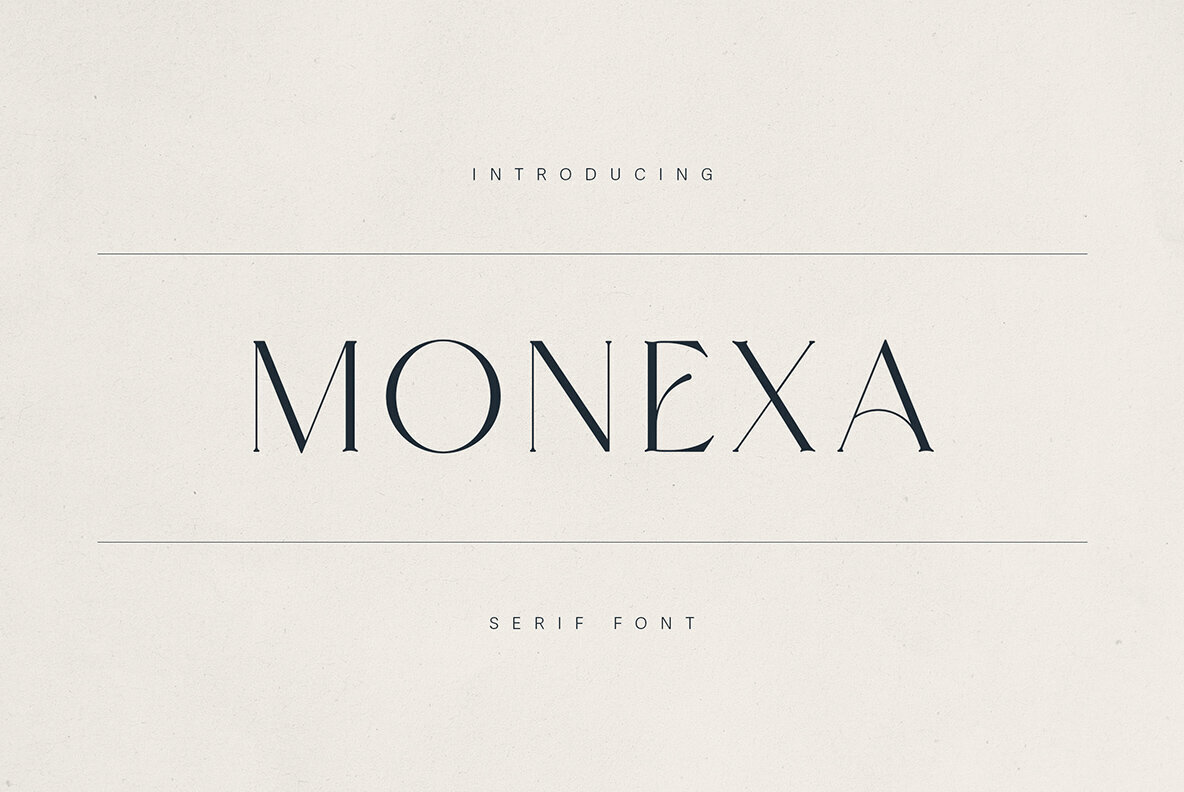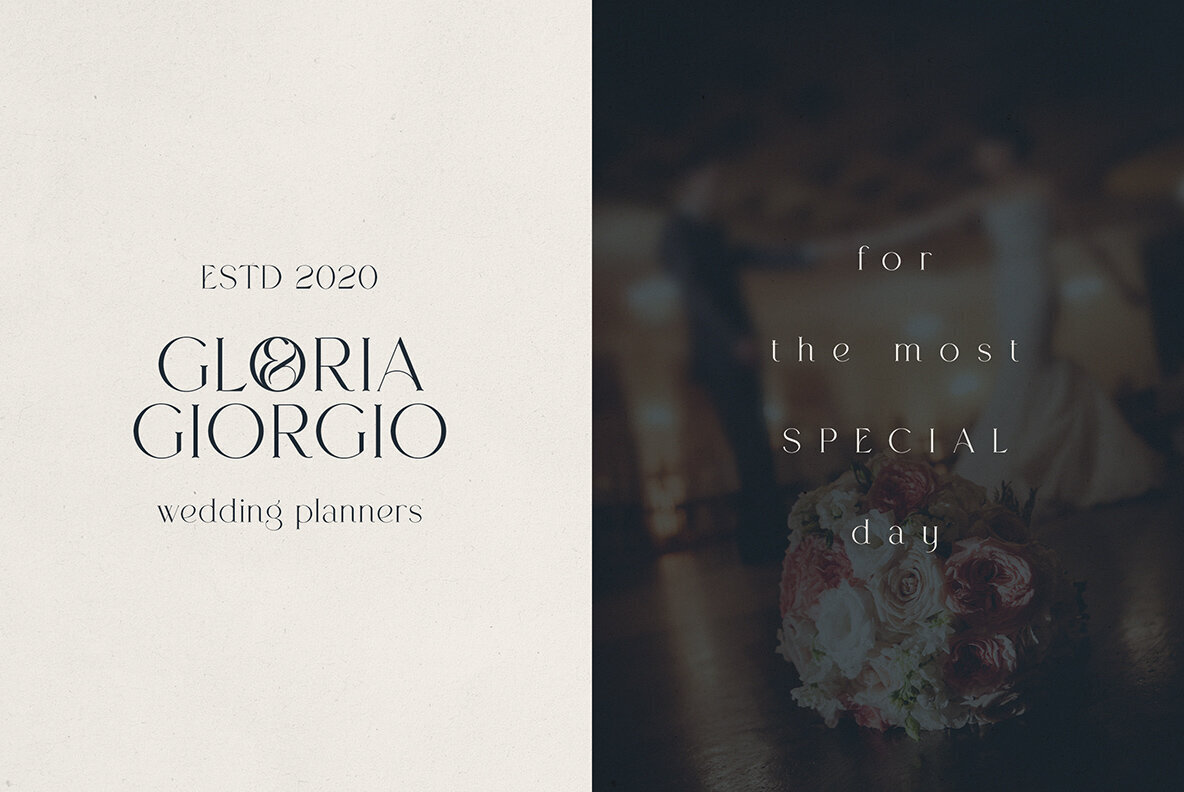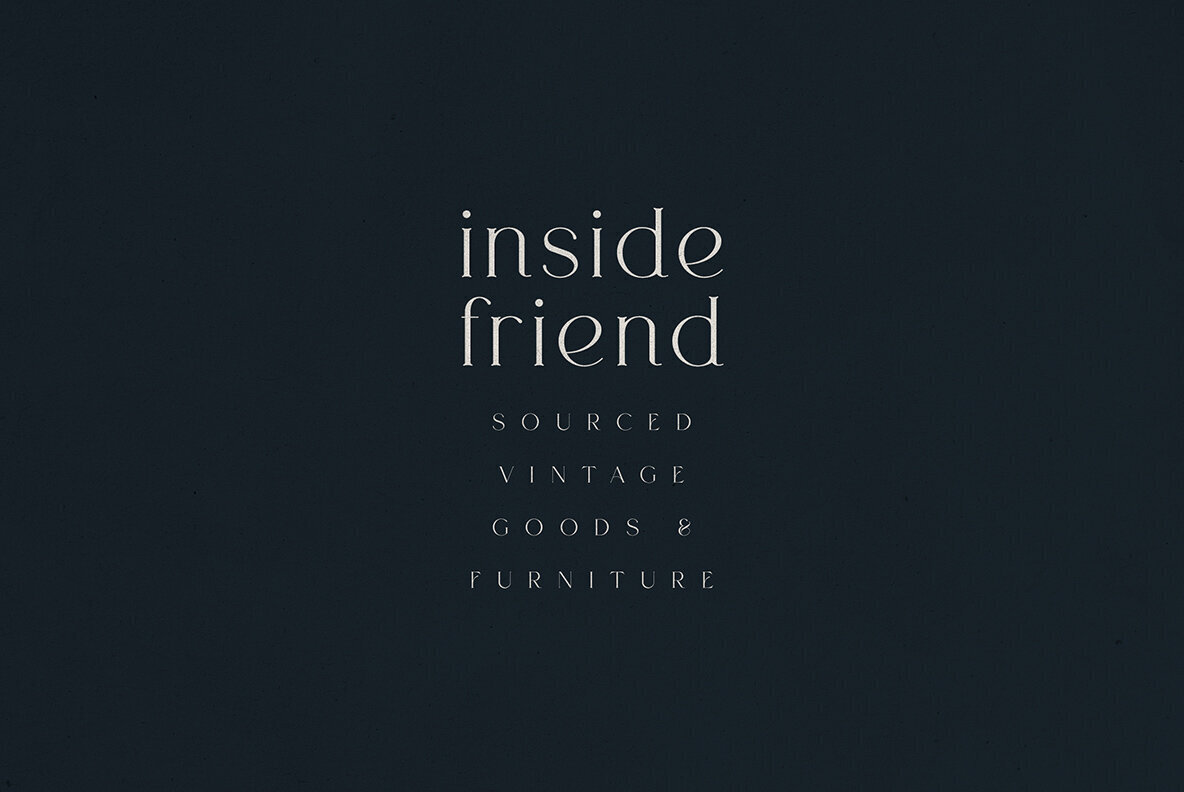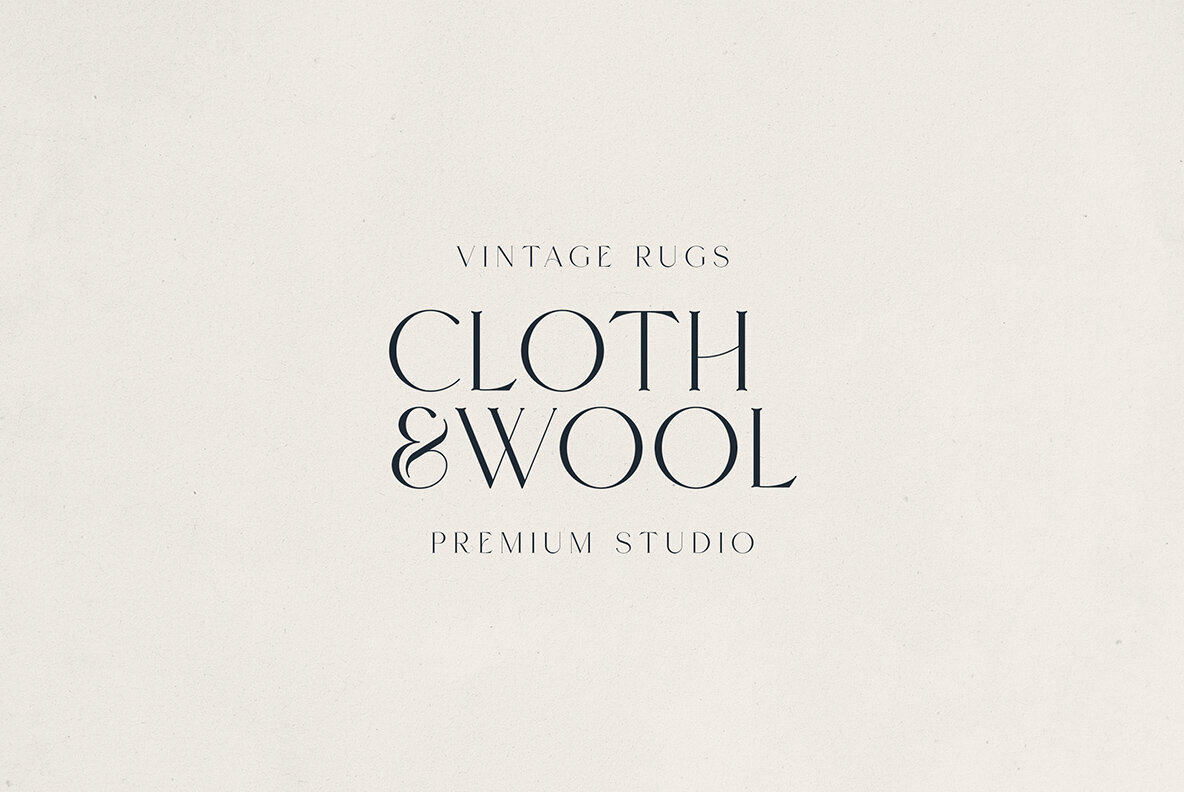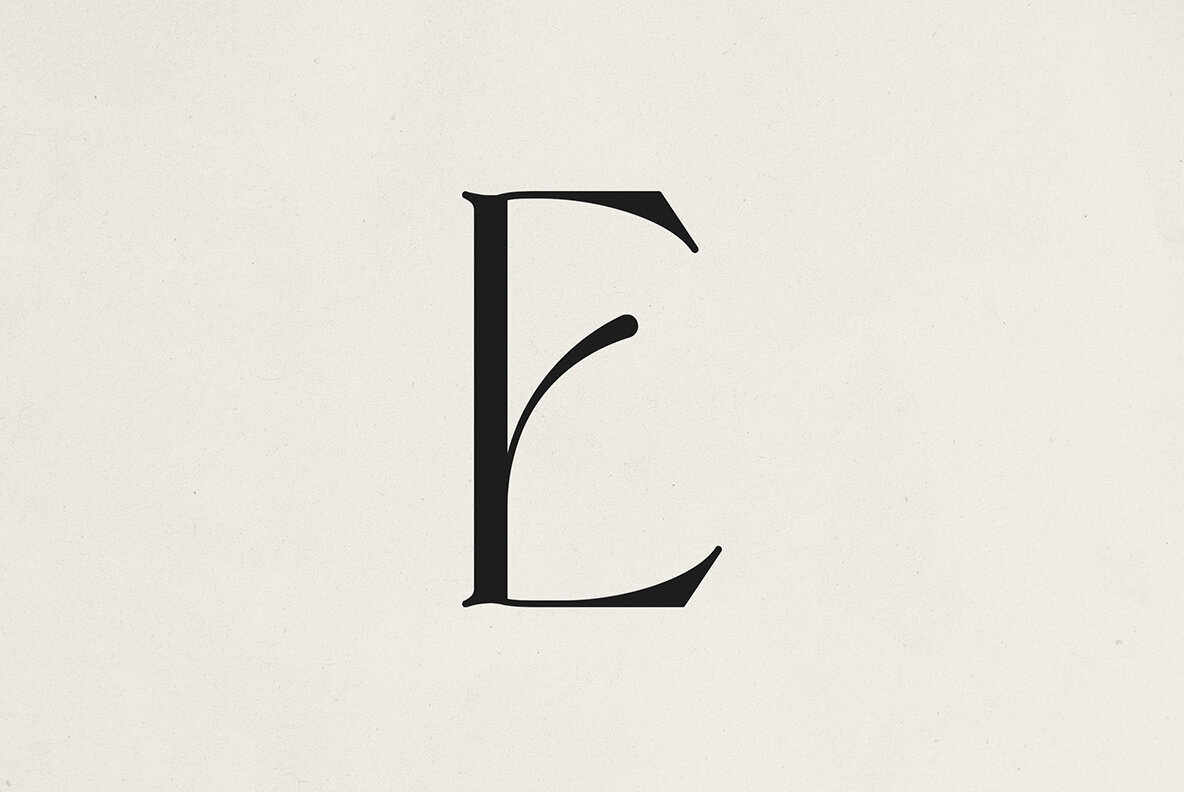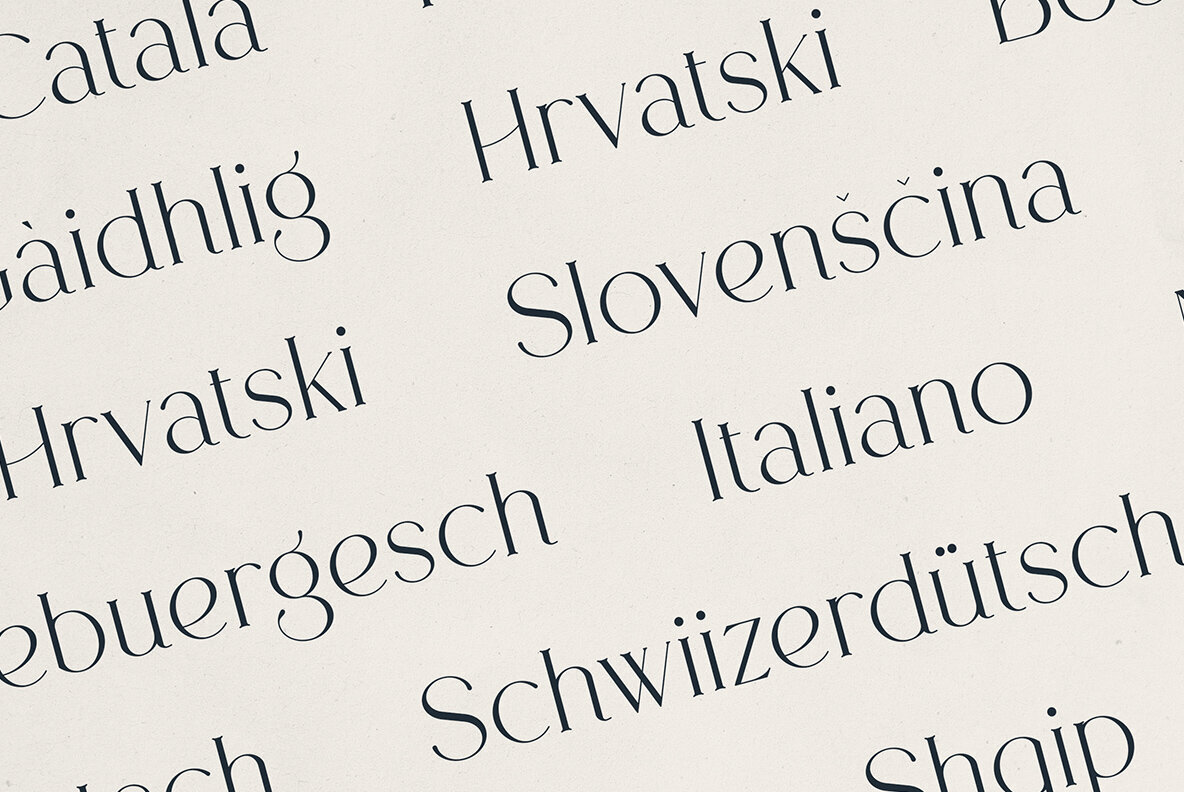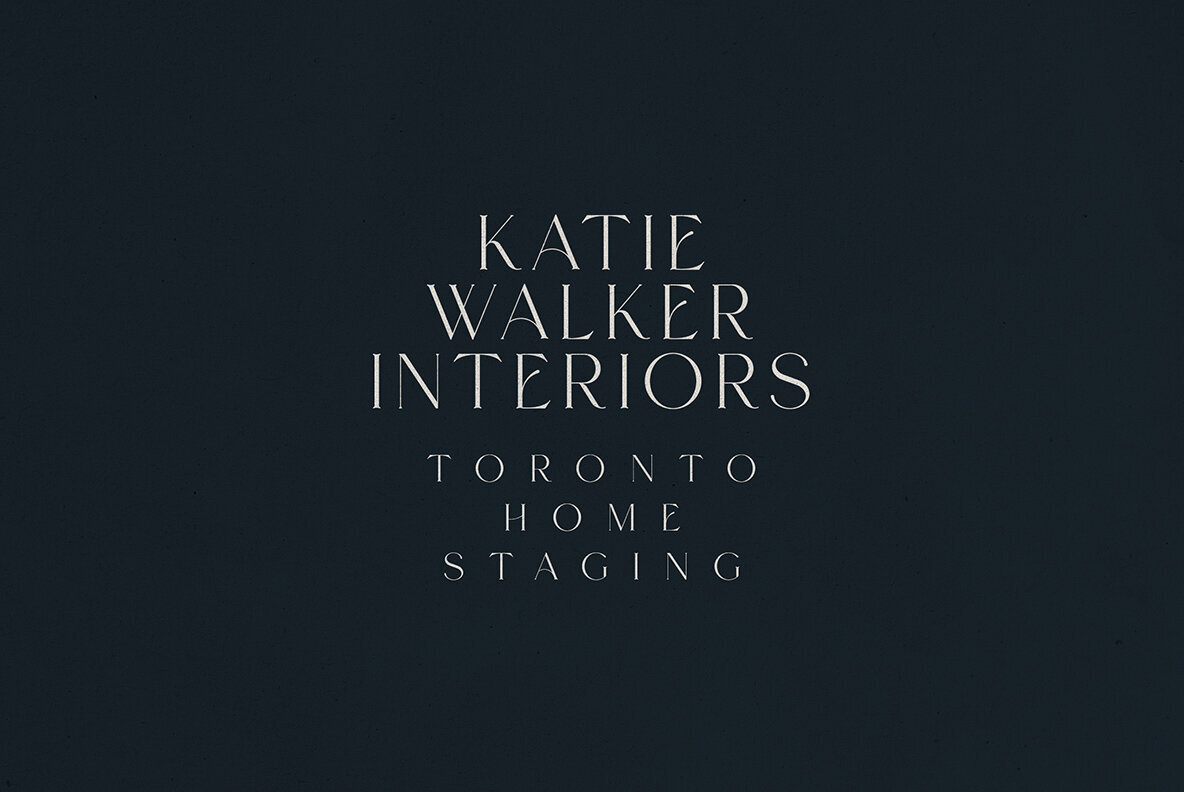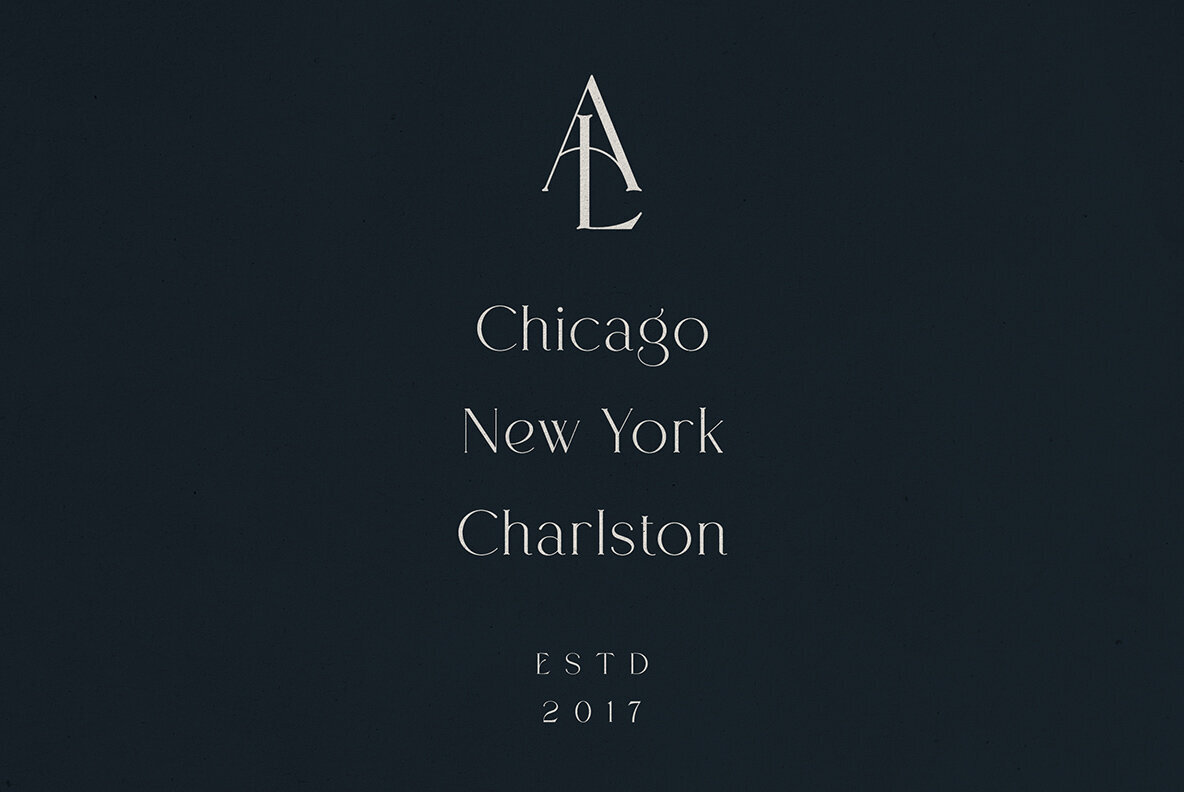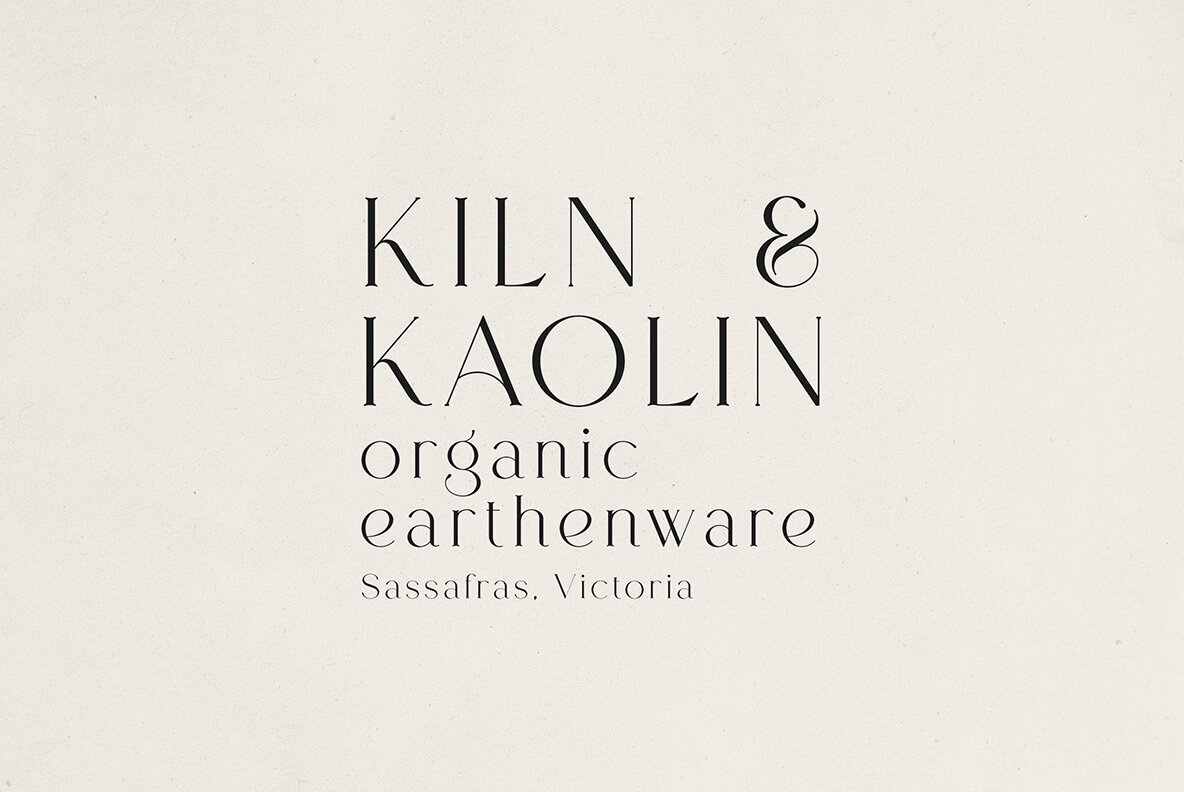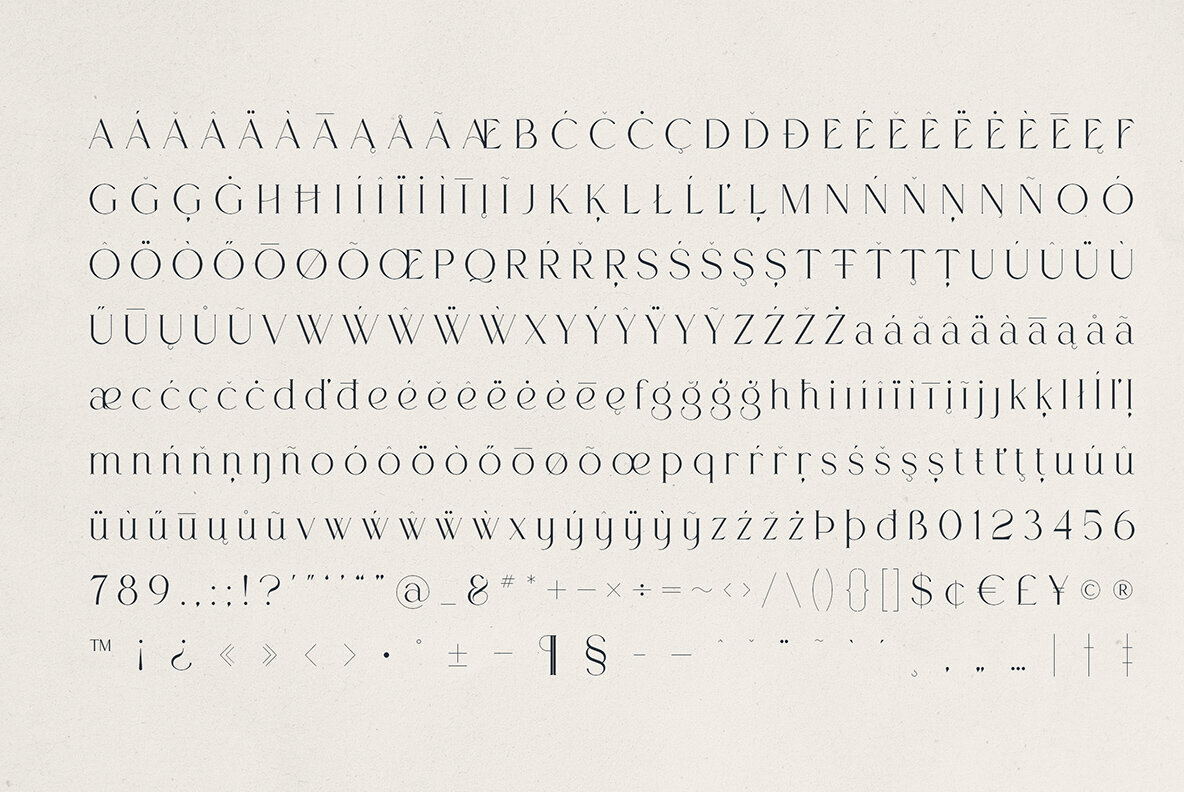
Monexa Font
Monexa Regular
Monexa is a refined serif typeface that balances timeless elegance with modern style. Its high-contrast strokes and sculpted curves lend a distinctive character, while refined details showcase an artistic sensibility. The stylized letterforms — especially the unique E, R, and ampersand — introduce a sense of visual identity ideal for branding, editorial layouts, and upscale packaging design. Versatile and artful, Monexa excels in both headline and body text applications. The font’s stylish harmony and broad language coverage make it suitable for global projects, from fashion magazines to luxury branding or wedding themes. Monexa brings a lasting sophistication to minimalist and ornate projects alike, making it a go-to choice for designs demanding presence and distinction.Monexa Modern Serif Typeface